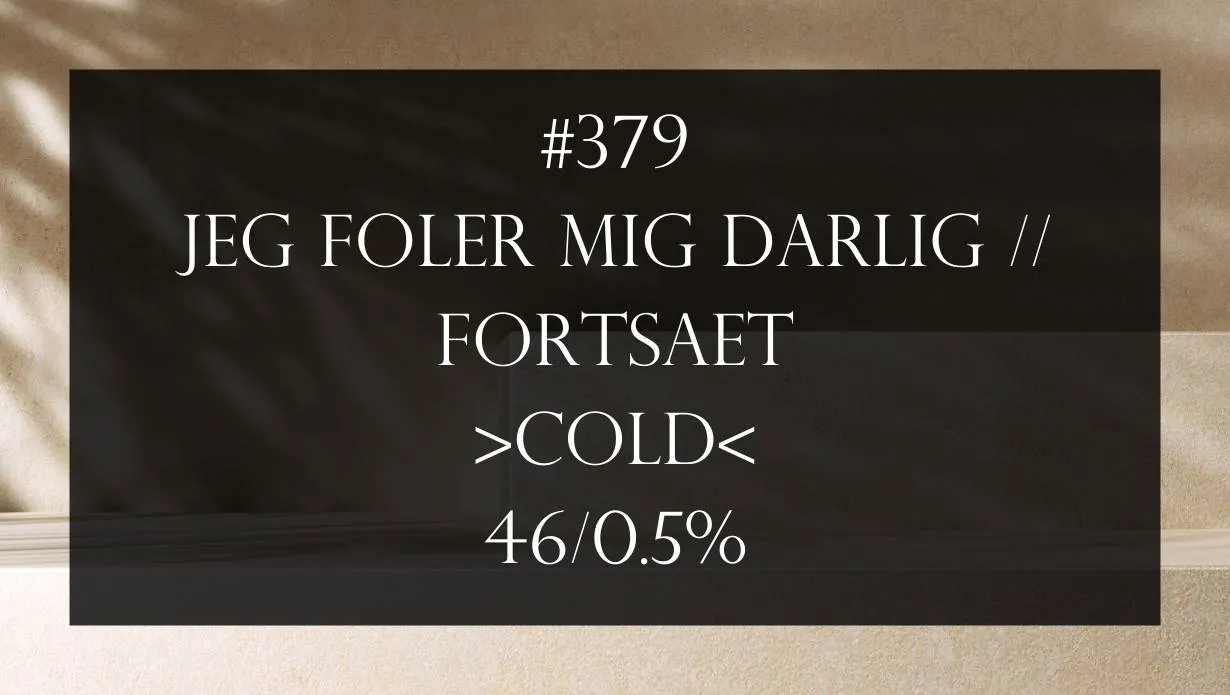
In this post, I shall present to you an amazing and unique typeface. Perpetua Titling Font is an interesting and attractive typeface. It was designed by Eric Gill in 1925. The design is a modification of his earlier Perpetua design and was commissioned by the British Monotype Corporation.
Perpetua Titling Font is an elegant serif typeface with high contrast between thick and thin strokes.
It’s perfect for headlines and titling and works well in both digital and print design. It’s also a good choice for setting text in all caps. This typeface is identical to the minion Font.
Perpetua Titling Font Info
Name | Perpetua Titling Font |
Designer | Eric Gill |
Style | Serif |
View of Perpetua Titling Font
Font Family
- Perpetua Titling MT Light
- Perpetua Titling MT
- Perpetua Titling MT Bold